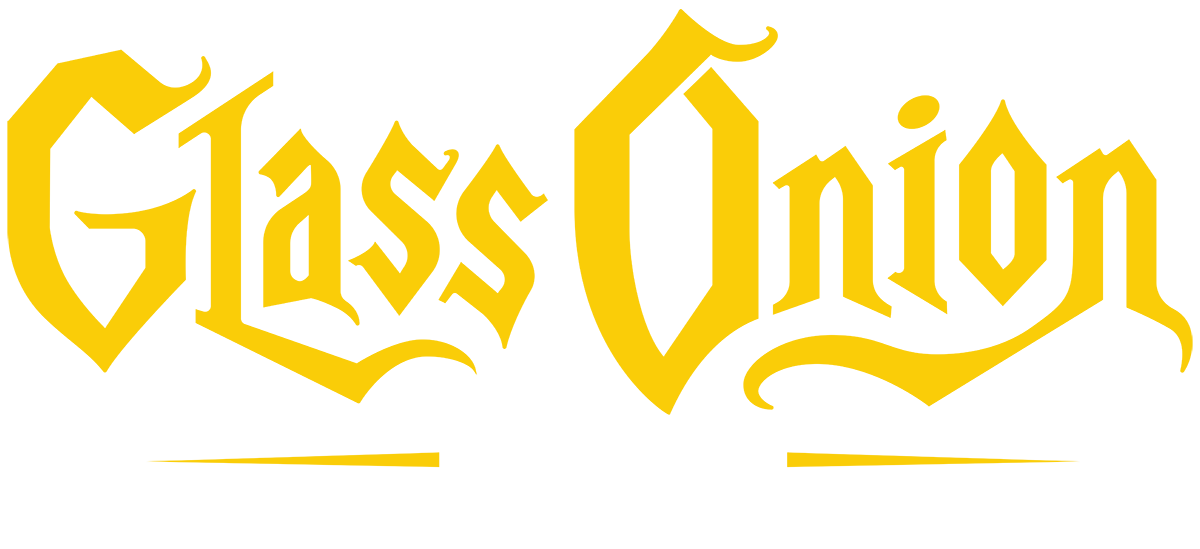
Knives Out Glass Onion Font . — archive of freely downloadable fonts. these are two different fonts. — we created a custom typeface for the film's title and worldwide marketing campaign. The knives out title logo is a custom one,. Font on the left is americana bold and the font on the right is denver serial heavy A twisty whodunnit that breathes new life into the. the glass onion title logo used a custom typeface made by the made shop. Browse by alphabetical listing, by style, by author or by popularity. The type mixes menacing serifs with wildly playful. A similar but better version would. in the same vein, the font used in the title for the movie’s sequel “ glass onion ” is also a custom design by the made shop, further.
— archive of freely downloadable fonts. the glass onion title logo used a custom typeface made by the made shop. — we created a custom typeface for the film's title and worldwide marketing campaign. these are two different fonts. The type mixes menacing serifs with wildly playful. in the same vein, the font used in the title for the movie’s sequel “ glass onion ” is also a custom design by the made shop, further. A twisty whodunnit that breathes new life into the. A similar but better version would. The knives out title logo is a custom one,. Font on the left is americana bold and the font on the right is denver serial heavy
Knives Out Glass Onion Font — archive of freely downloadable fonts. The knives out title logo is a custom one,. — archive of freely downloadable fonts. — we created a custom typeface for the film's title and worldwide marketing campaign. The type mixes menacing serifs with wildly playful. these are two different fonts. the glass onion title logo used a custom typeface made by the made shop. Browse by alphabetical listing, by style, by author or by popularity. A similar but better version would. Font on the left is americana bold and the font on the right is denver serial heavy in the same vein, the font used in the title for the movie’s sequel “ glass onion ” is also a custom design by the made shop, further. A twisty whodunnit that breathes new life into the.
"Glass Onion A Knives out Mystery Escape Room Activation Glass Knives Out Glass Onion Font in the same vein, the font used in the title for the movie’s sequel “ glass onion ” is also a custom design by the made shop, further. A twisty whodunnit that breathes new life into the. The knives out title logo is a custom one,. — we created a custom typeface for the film's title and worldwide. Knives Out Glass Onion Font.
"Glass Onion A Knives out Mystery Escape Room Activation Glass Knives Out Glass Onion Font — archive of freely downloadable fonts. in the same vein, the font used in the title for the movie’s sequel “ glass onion ” is also a custom design by the made shop, further. the glass onion title logo used a custom typeface made by the made shop. Browse by alphabetical listing, by style, by author or. Knives Out Glass Onion Font.
"Glass Onion A Knives out Mystery Escape Room Activation Glass Knives Out Glass Onion Font The knives out title logo is a custom one,. these are two different fonts. A similar but better version would. A twisty whodunnit that breathes new life into the. in the same vein, the font used in the title for the movie’s sequel “ glass onion ” is also a custom design by the made shop, further. . Knives Out Glass Onion Font.
Glass Onion A Knives Out Mystery Movie Poster (12 of 31) IMP Awards Knives Out Glass Onion Font Browse by alphabetical listing, by style, by author or by popularity. A similar but better version would. A twisty whodunnit that breathes new life into the. — archive of freely downloadable fonts. the glass onion title logo used a custom typeface made by the made shop. The type mixes menacing serifs with wildly playful. these are two. Knives Out Glass Onion Font.
Glass Onion Knives out su Netflix uscita, trama, cast e trailer del Knives Out Glass Onion Font the glass onion title logo used a custom typeface made by the made shop. A similar but better version would. Font on the left is americana bold and the font on the right is denver serial heavy The knives out title logo is a custom one,. these are two different fonts. in the same vein, the font. Knives Out Glass Onion Font.
Glass Onion A Knives Out Mystery Movie Review The Absurdity Takes Knives Out Glass Onion Font — we created a custom typeface for the film's title and worldwide marketing campaign. A similar but better version would. the glass onion title logo used a custom typeface made by the made shop. these are two different fonts. The type mixes menacing serifs with wildly playful. Browse by alphabetical listing, by style, by author or by. Knives Out Glass Onion Font.
"Glass Onion A Knives Out Mystery Knives Out Glass Onion Font The type mixes menacing serifs with wildly playful. The knives out title logo is a custom one,. these are two different fonts. — archive of freely downloadable fonts. A twisty whodunnit that breathes new life into the. A similar but better version would. Font on the left is americana bold and the font on the right is denver. Knives Out Glass Onion Font.
"Glass Onion A Knives out Mystery Escape Room Activation Glass Knives Out Glass Onion Font — we created a custom typeface for the film's title and worldwide marketing campaign. in the same vein, the font used in the title for the movie’s sequel “ glass onion ” is also a custom design by the made shop, further. the glass onion title logo used a custom typeface made by the made shop. . Knives Out Glass Onion Font.
Glass Onion A Knives Out Mystery (2022) by doniceman on DeviantArt Knives Out Glass Onion Font The knives out title logo is a custom one,. — archive of freely downloadable fonts. A twisty whodunnit that breathes new life into the. Font on the left is americana bold and the font on the right is denver serial heavy A similar but better version would. in the same vein, the font used in the title for. Knives Out Glass Onion Font.